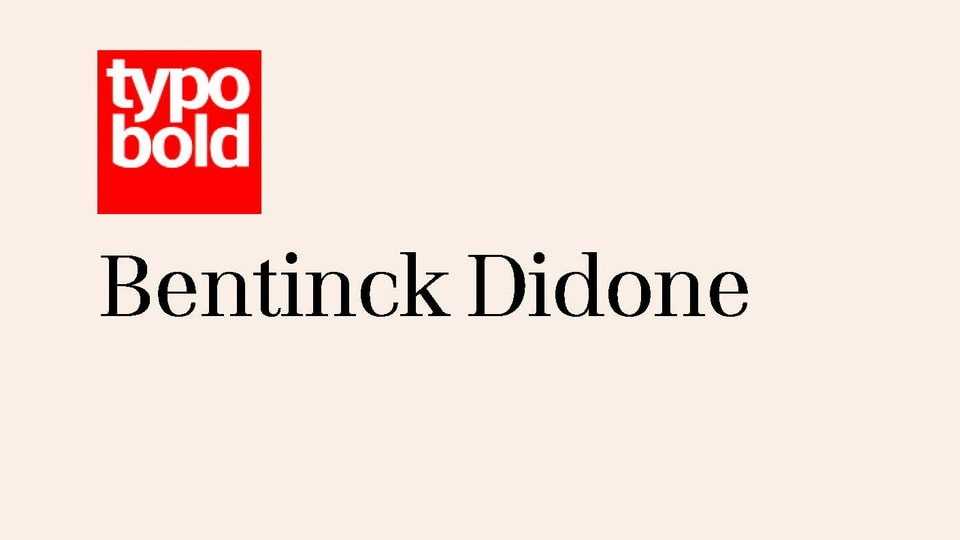
Download Bentick font, a serif typeface that reimagines the classic Didone style with soft, restrained shapes. This modern interpretation blends the elegance of traditional Didone typefaces with a touch of contemporary sophistication.
Designer: Typobold